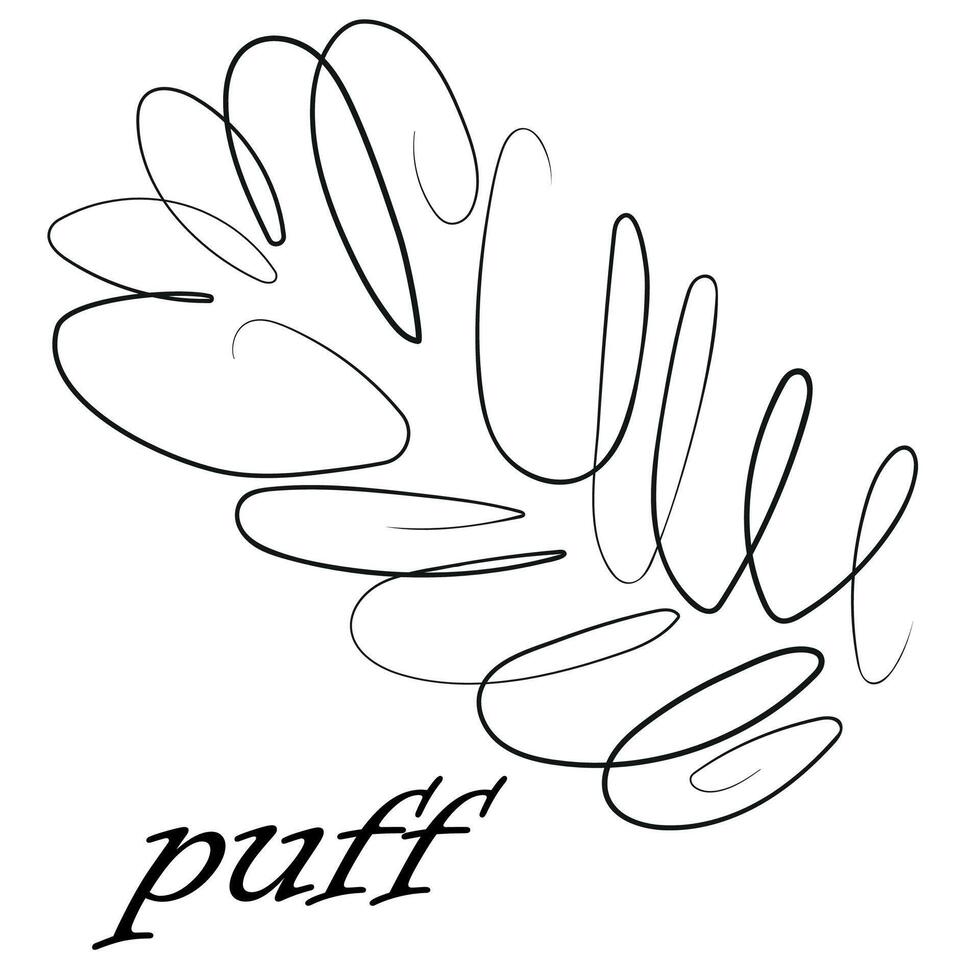
the logo for the bakery, namely puff pastry with nuts or any other filling, drawn in line art style and the name written in an elegant font Pro Vector